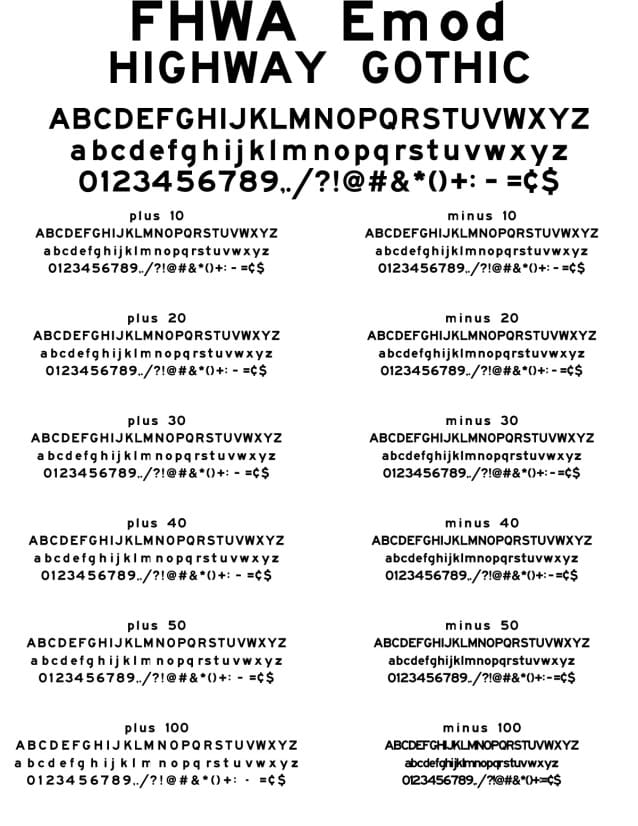
FHWA Series Emod 2024 Font, suitable for the creation of official road, street and highway signage in the US. Public domain outlines from the Federal Highway Administration. Includes recent updates to ¢, $ – +